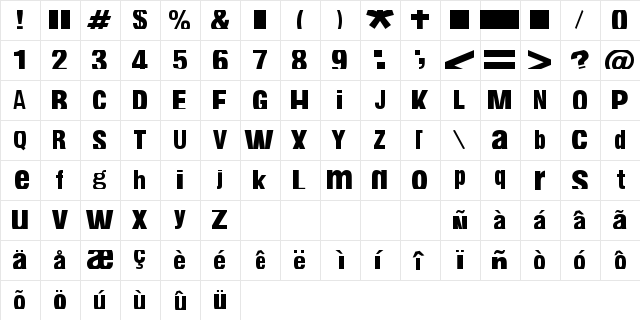
fabianestem Normal
Design Context for fabianestem Typeface
fabianestem offers clean, dependable letterforms without strong stylistic allegiance, making it a practical choice for designers who need flexibility.